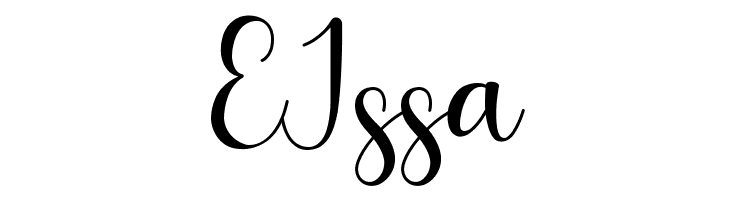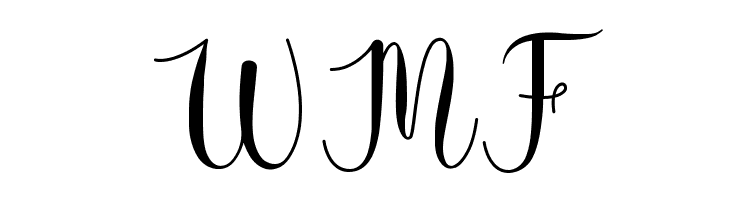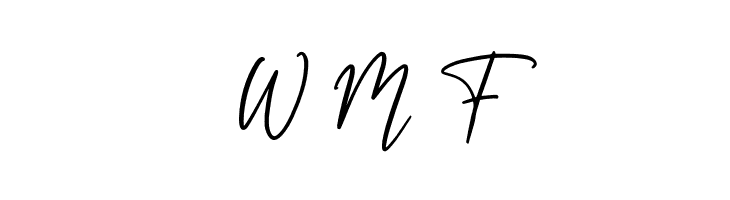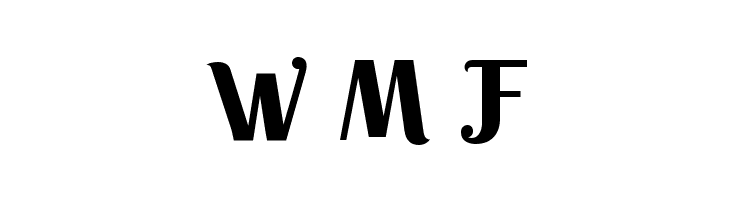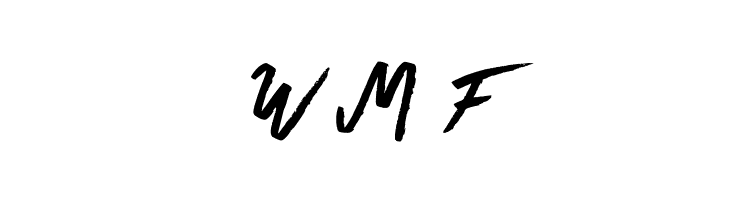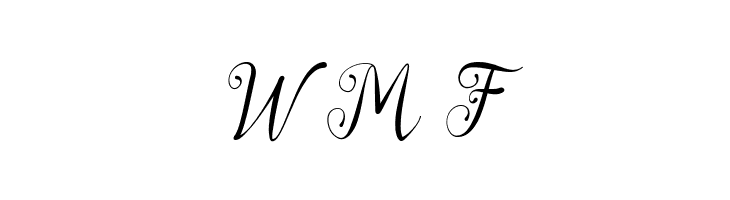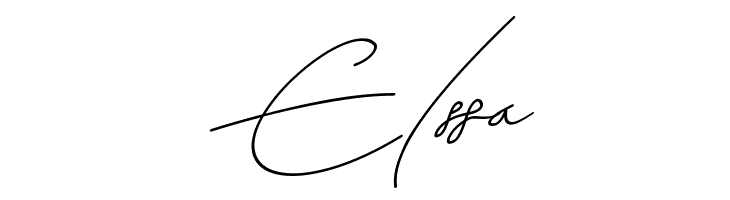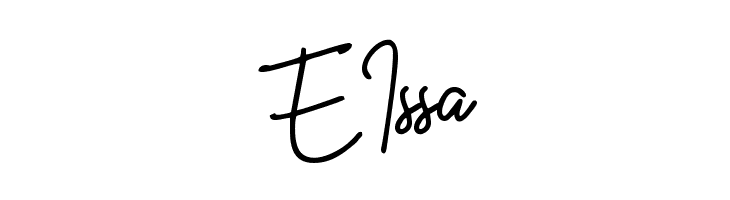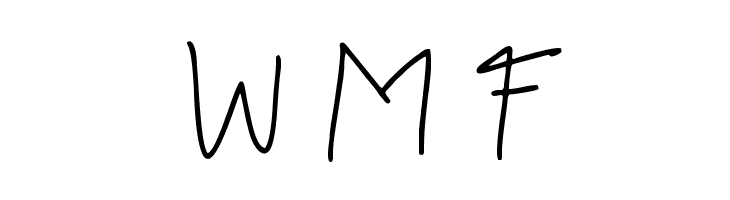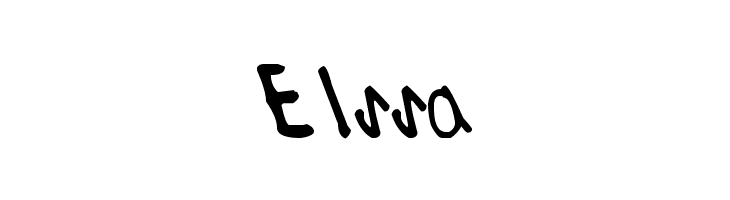
A dynamic and fluid script font with bold, smooth curves and a slightly slanted orientation.
A fluid, elegant script font with a natural handwritten style.
A bold, brush-style font with dynamic strokes and a sense of motion.
An elegant script font with flowing curves and intricate swirls.
An elegant, flowing script font with a natural handwriting style.
A bold, decorative font with elegant curves and a strong presence.
A playful and casual handwritten font with dynamic strokes and moderate contrast.
A playful, bold handwritten font with a casual and dynamic style.